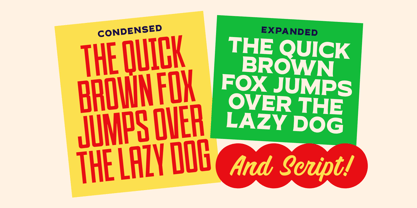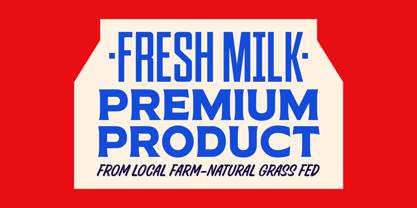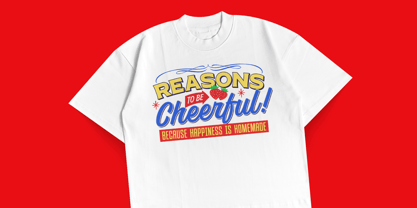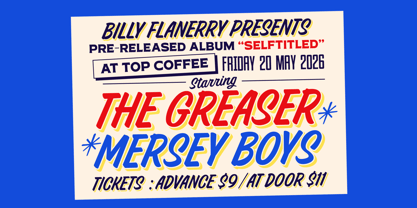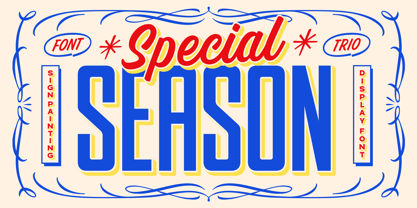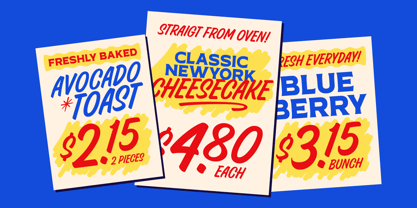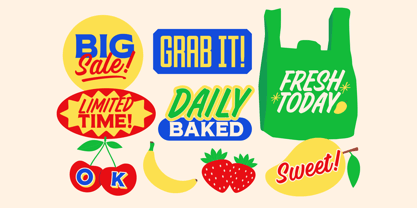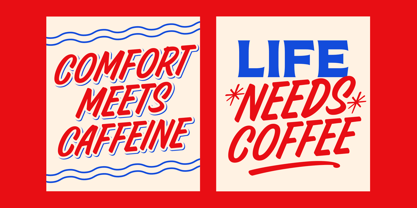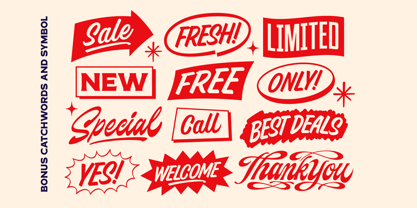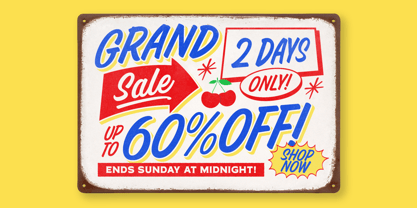
Special Season
by The Native Saint Club
The Special Season Font Family was designed by Bagas Ferdiansah, Septianto Nugroho and published by The Native Saint Club. Special Season contains 4 styles and family package options. More about this family
TNSC Special Season is a versatile FONT TRIO inspired by classic sign painting, featuring Brush, Sans Serif, and Serif styles. Plus catchwords and symbols to elevate your designs. It’s perfect for branding, packaging, advertising, and printed materials.